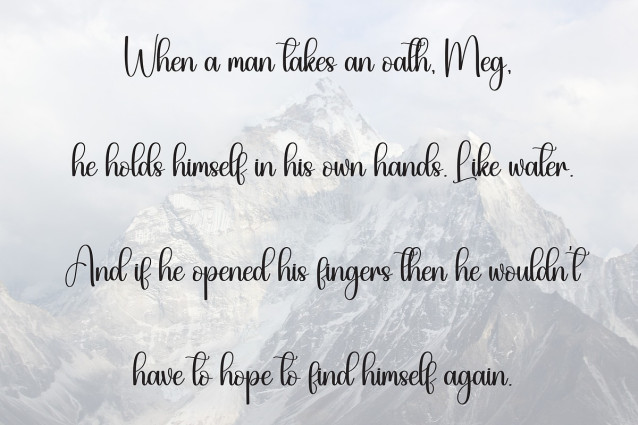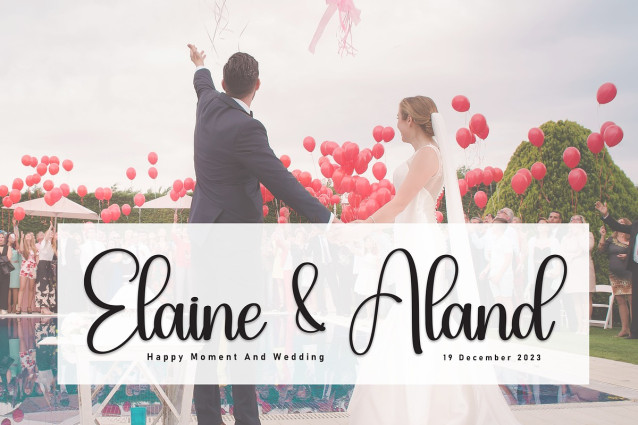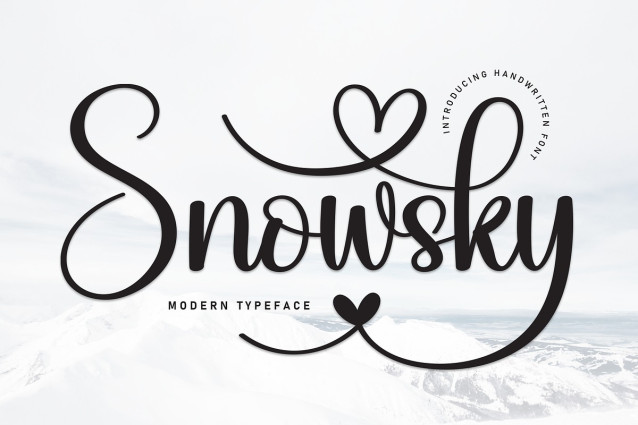
Snowsky Script Font
Snowsky Script Font a popular and professional script font. Modern and elegant, this typeface is made of beautiful creative strokes.This font is perfect for your creative ideas, both formal and informal. It has a modern style with a touch of creative ideas that is very suitable to be applied anywhere that requires creative ideas such as invitation cards,letterheads, website logos, social media, banners, advertisements, brochures, packaging products, leather products, and any product that requires writing.By using this font, all of your products will look luxurious, elegant, and attractive, please try and see the results.This font includes a complete set of beautiful upper and lowercase letters, numbers, a wide variety of punctuation marks, and ligatures.